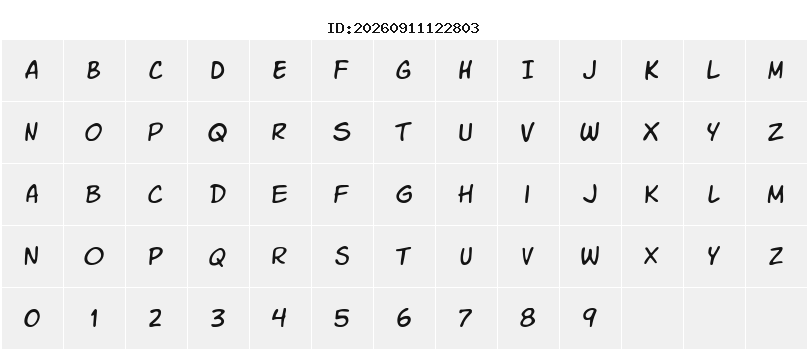
VTC Letterer Pro Preview
• Font Name: VTC Letterer Pro
• Full Font Name: VTC Letterer Pro Regular
• Designer: WolfBainX
About VTC Letterer Pro.ttf
VTC Letterer Pro.ttf is a modern, elegant sans-serif font designed for ultimate readability and visual harmony. Perfect for branding, headlines, web design, and print materials.